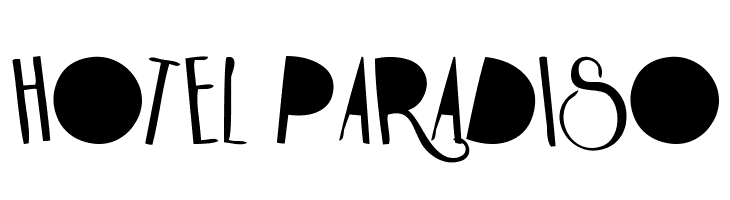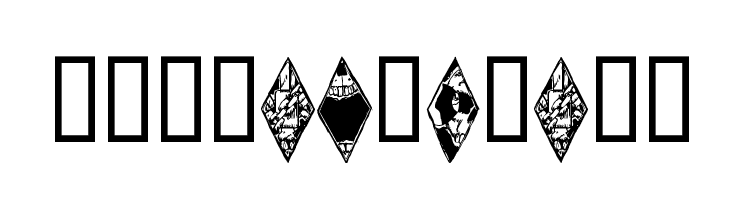
A bold, geometric, condensed italic font with sharp angles and a futuristic style.
( Valdeir Junior )
A bold and italicized typeface with a modern and dynamic style.
A bold, rounded font with smooth curves and uniform strokes.
A bold, geometric font with a leftward slant and strong visual impact.
A modern, italicized font with a futuristic and dynamic design.
( Fonts by Penis Designer )
An artistic, hand-drawn font with intricate line work and medium contrast.
( Fonts by Intype )
A playful, hand-drawn font with exaggerated serifs and a bouncy baseline.